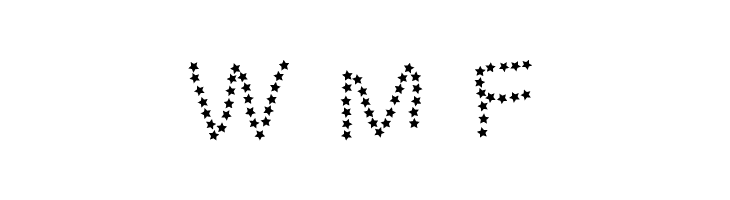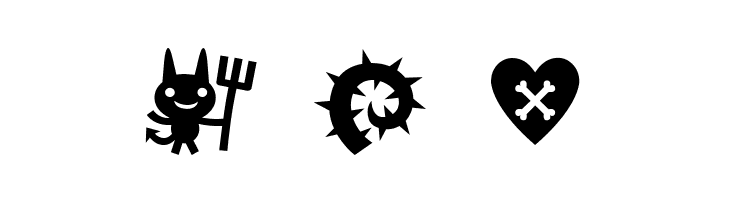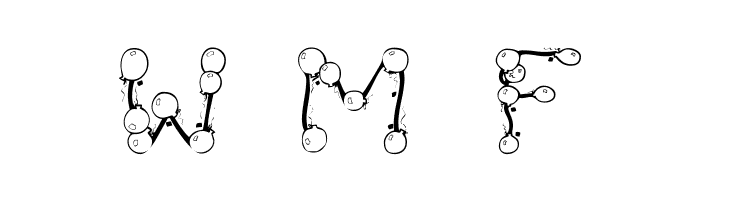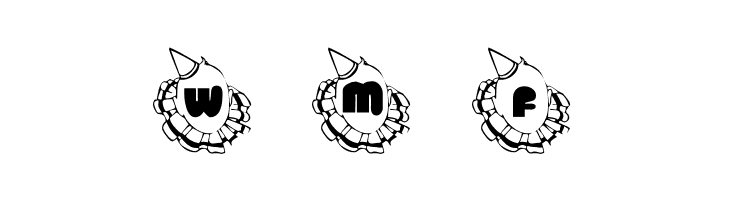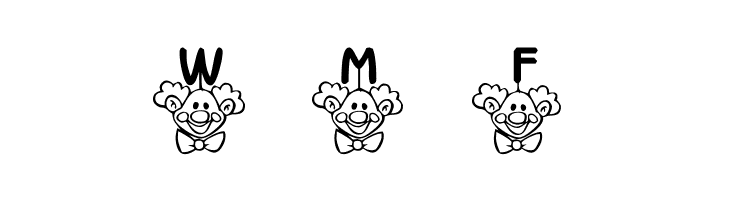
A playful, candy-inspired font with bold, rounded letters connected by circular elements.
A whimsical, modular font for assembling cartoon faces.
A playful font with ghostly figures peeking over each character, perfect for festive themes.
A playful, decorative font with bold, rounded letters and integrated strawberry motifs.
A playful, character-filled font perfect for fun and themed projects.
A whimsical font with letters nestled in Easter chick designs, perfect for festive projects.
A whimsical, gingerbread-themed font perfect for festive projects.
A whimsical decorative font featuring carousel horses integrated with each letter.
A playful, cupcake-themed decorative font with bold, rounded characters.
A whimsical decorative font with pony illustrations embedded in each letter.
A playful, decorative font with colorful, rainbow-like patterns and a whimsical style.
A bold, decorative font with integrated flip-flop illustrations for a playful look.
A playful, rounded font with a hand-drawn, balloon-like appearance.
A bold, hand-drawn font with dotted accents, perfect for playful and lively designs.
A whimsical decorative font made entirely of star shapes.
A playful and spooky collection of Halloween-themed icons in bold silhouettes.
A playful, balloon-inspired decorative font with interconnected circular shapes.
A playful font with cartoon bunnies accompanying each character.
A whimsical font with characters encased in clown faces, ideal for playful designs.
A playful font featuring bold letters with clown faces, perfect for fun projects.